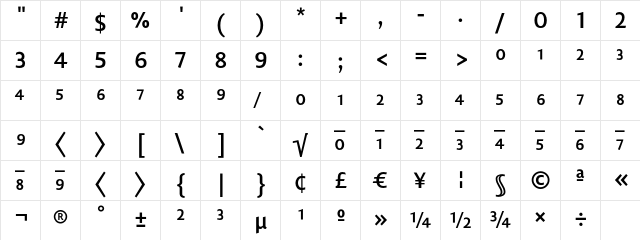
Lisboa Sans Expert Bold
Design Context for Lisboa Sans Expert Typeface
Lisboa Sans Expert is a composed and adaptable typeface that performs quietly and consistently across a wide range of design contexts. The heavy weight commands attention and anchors typographic hierarchies.